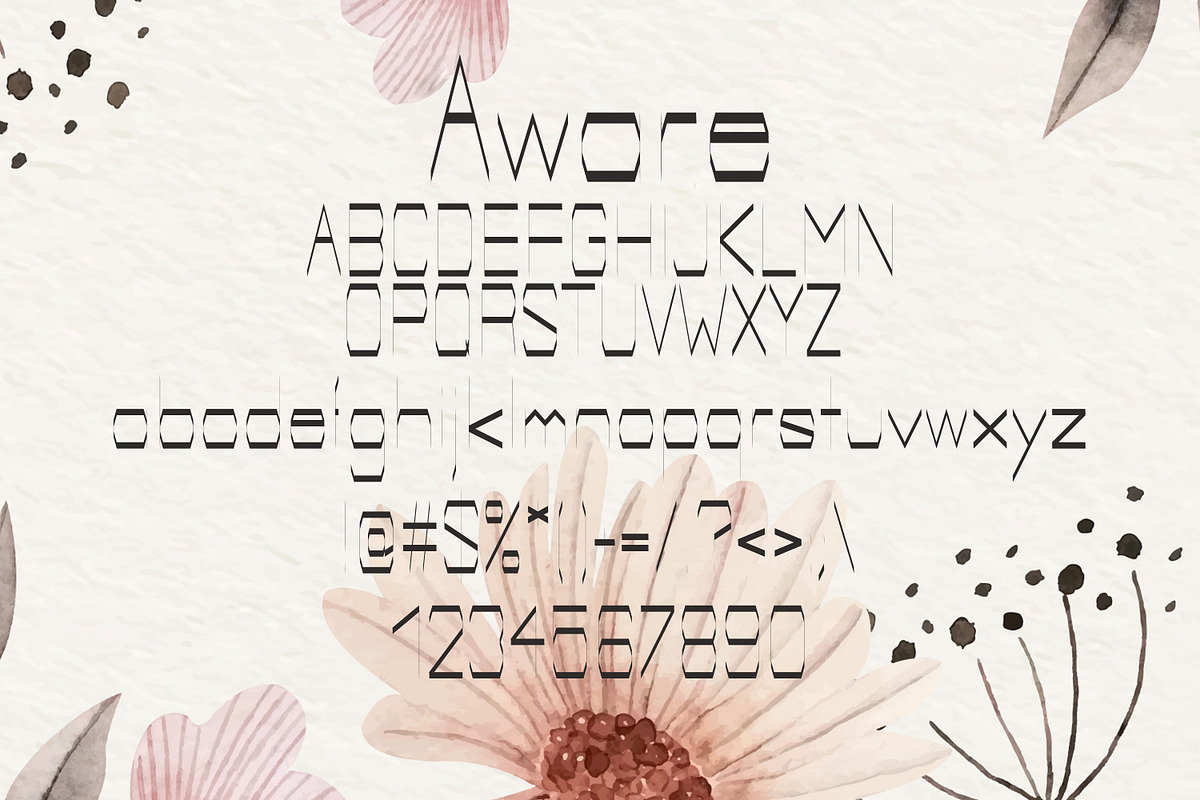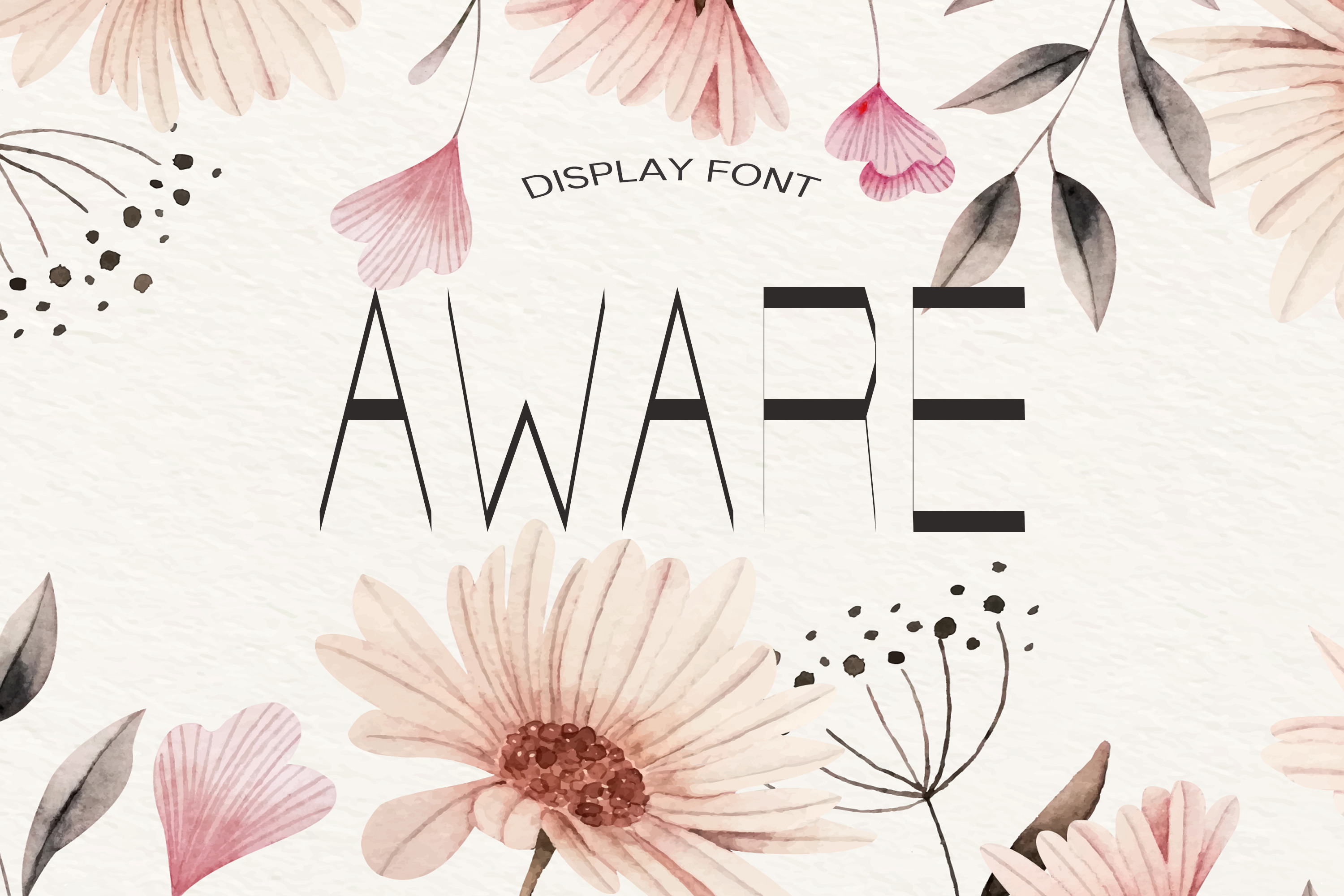
Aware Summer Font
Unique handmade calligraphic Summer Font is a modern display font with alternative flourish lowercase and uppercase characters. It helps you realize your dreams and creations.